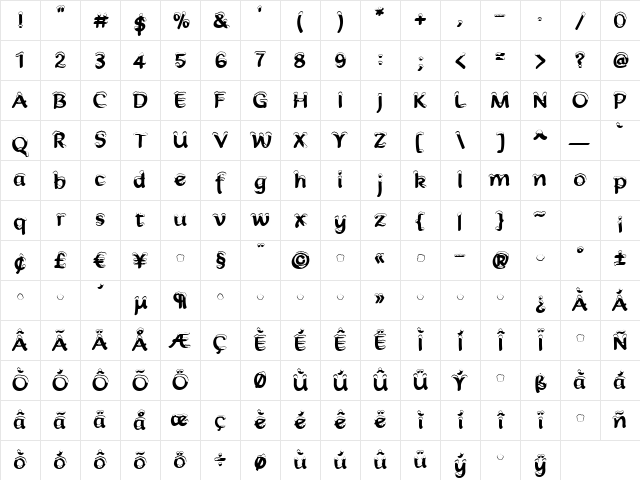
Complete XMAS4_MA Regular glyph index. Displaying only characters natively supported by XMAS4_MA Regular font.
XMAS4_MA is a composed and adaptable typeface that performs quietly and consistently across a wide range of design contexts.
Who designed the XMAS4_MA Regular font?
This font was published by Christophe Badani. Check the technical specs section for copyright and designer details.